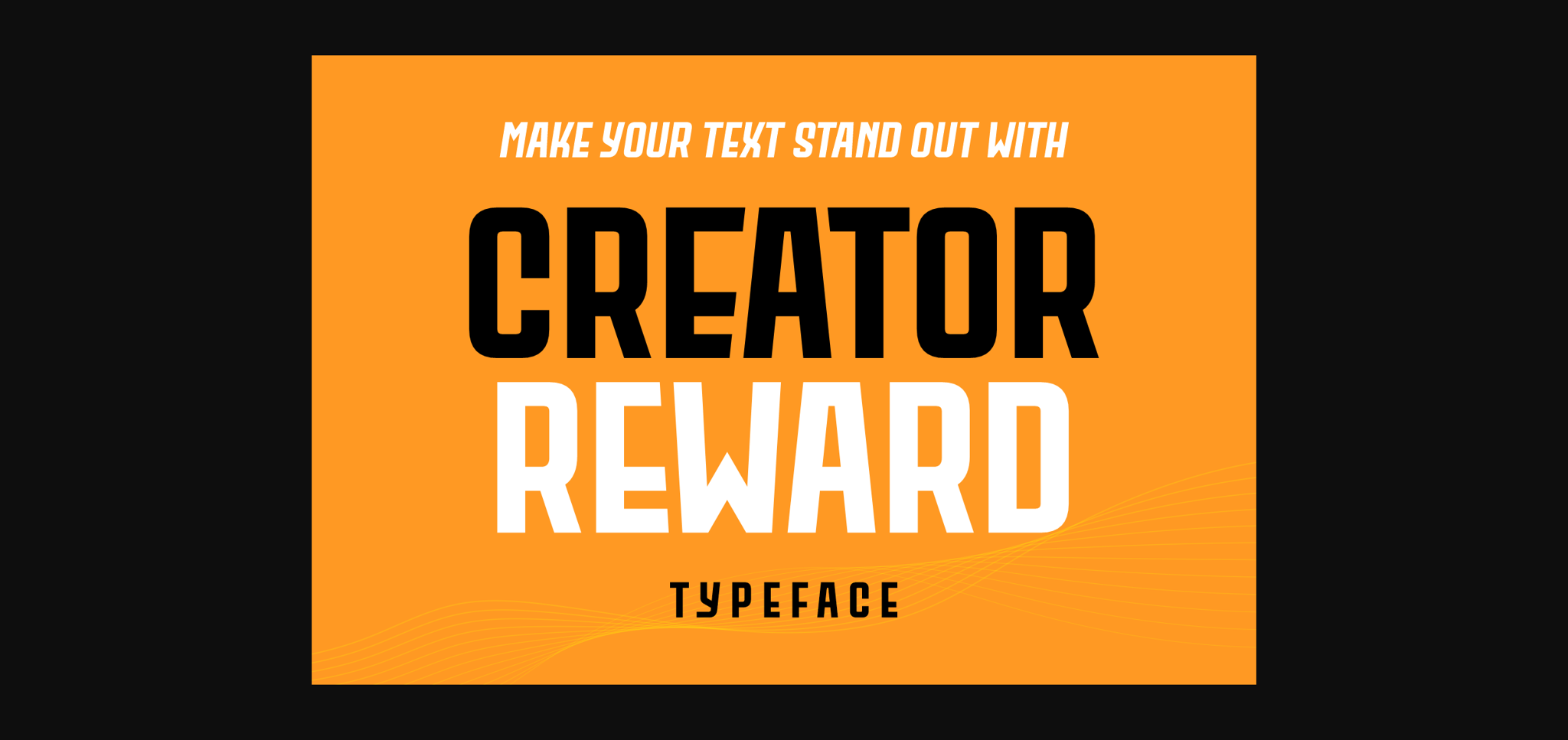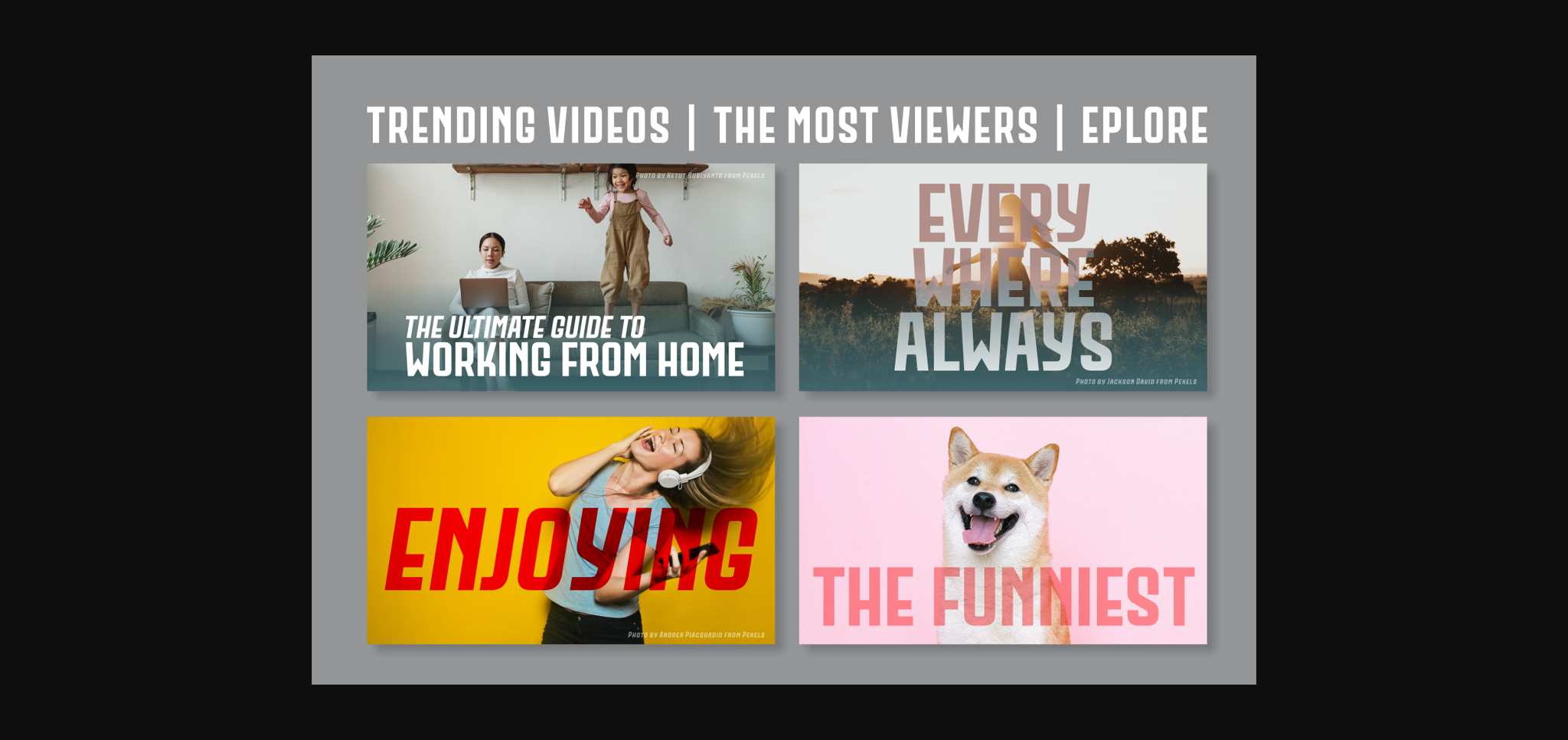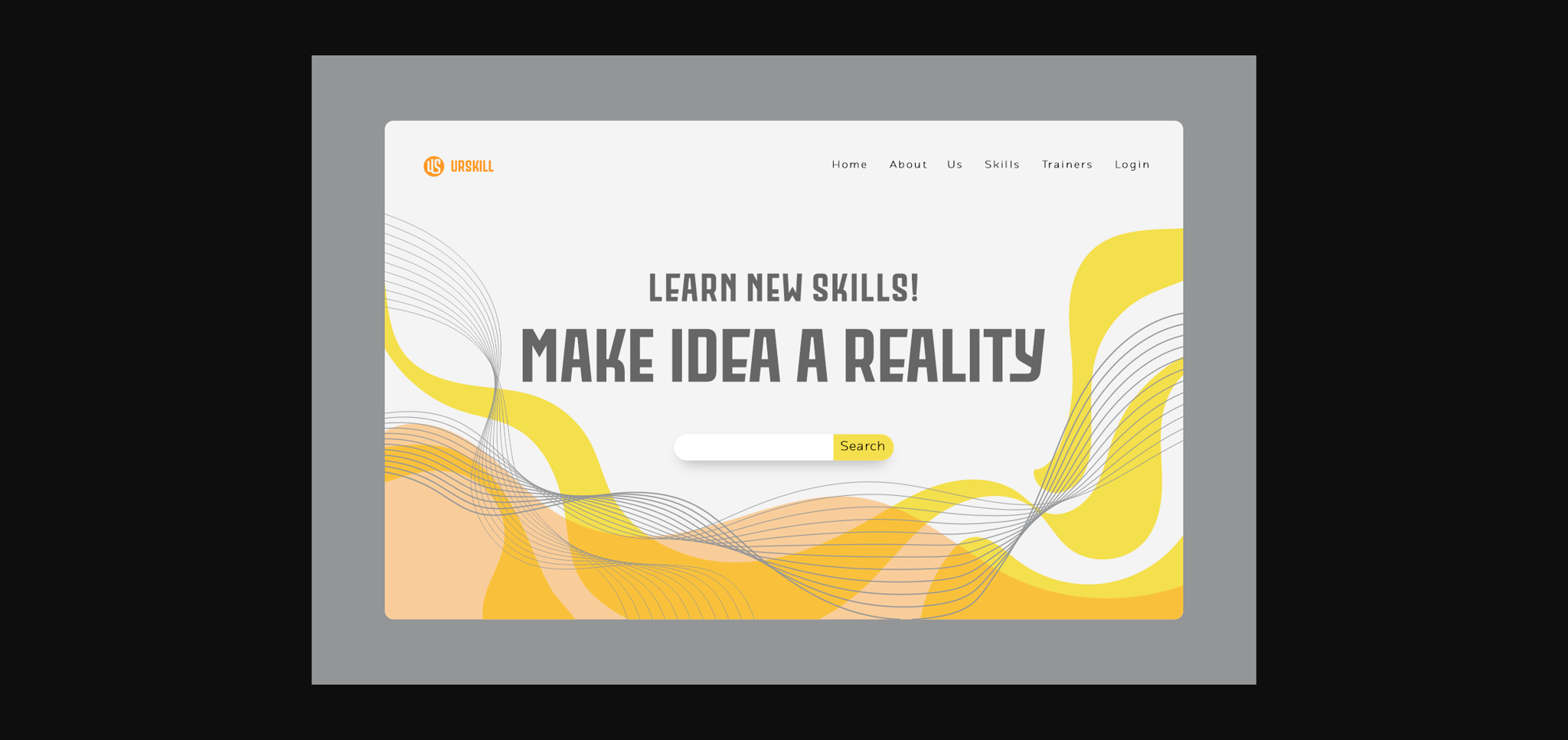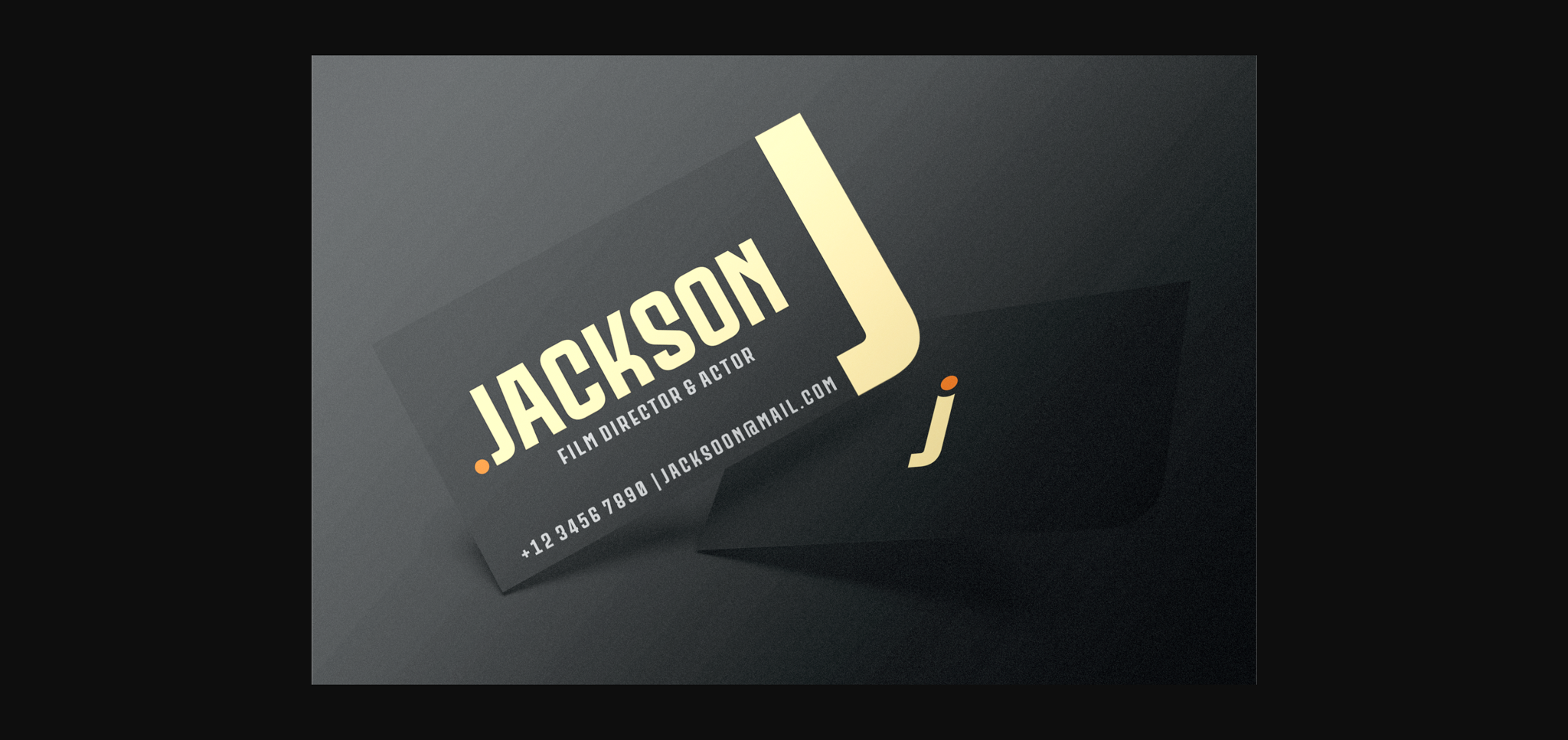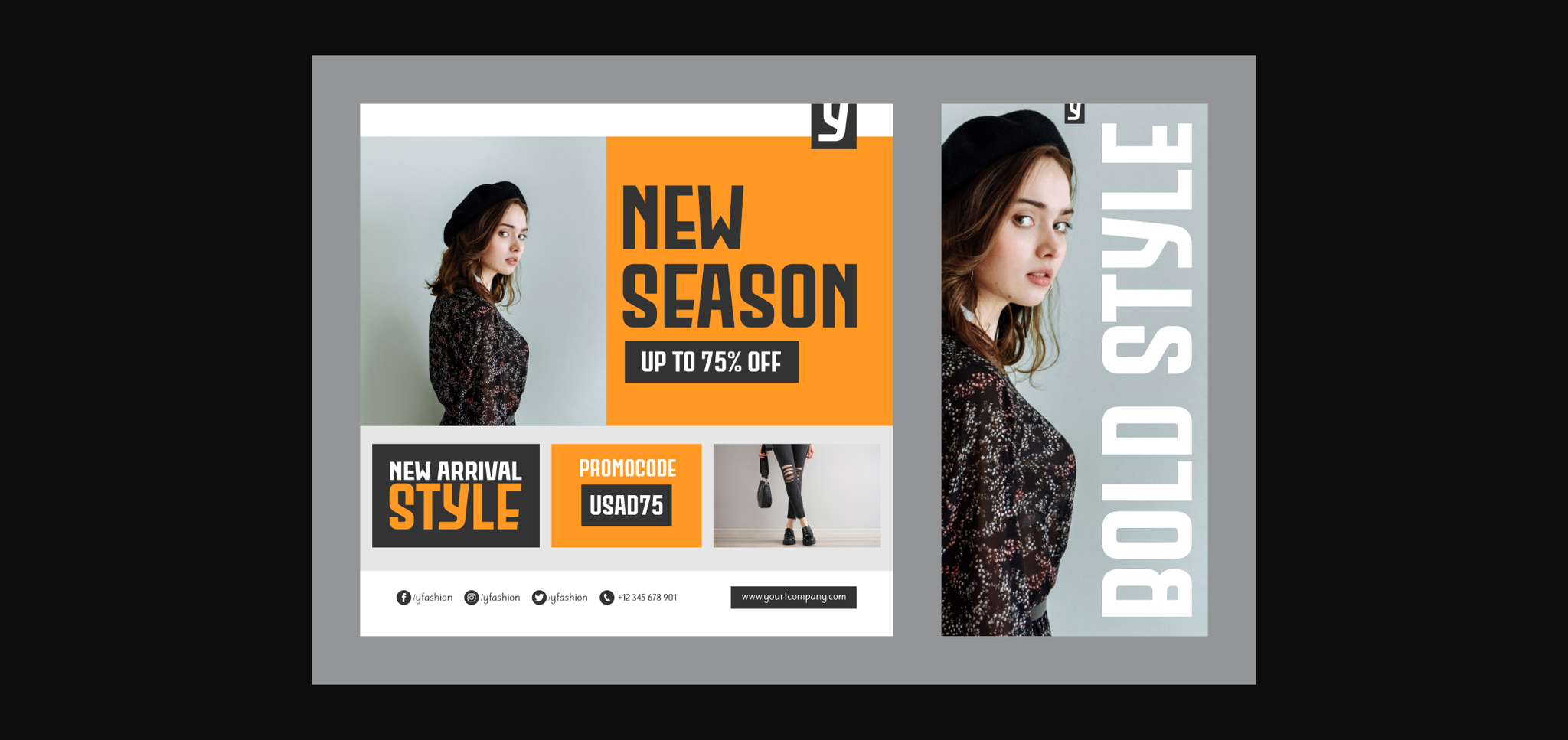
About Creator Reward Font
Creator Reward is a sans serif font that will give a real modern feel to any project.
Masterfully designed to become a true favorite, this font has the potential to bring each of your creative ideas to the highest level!